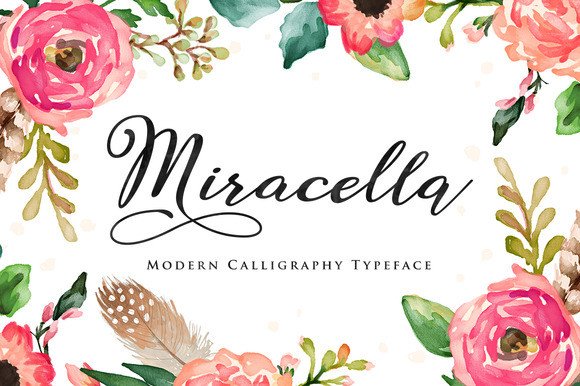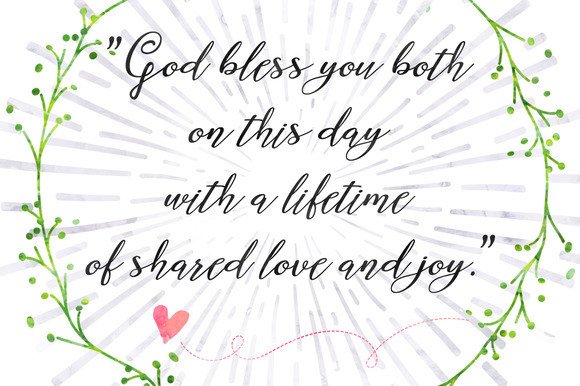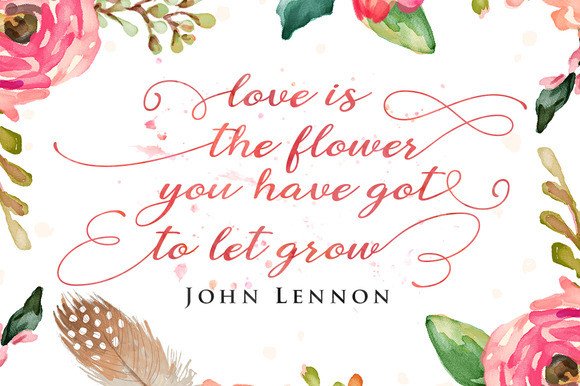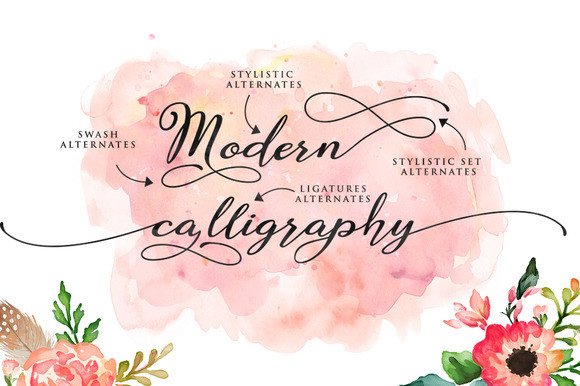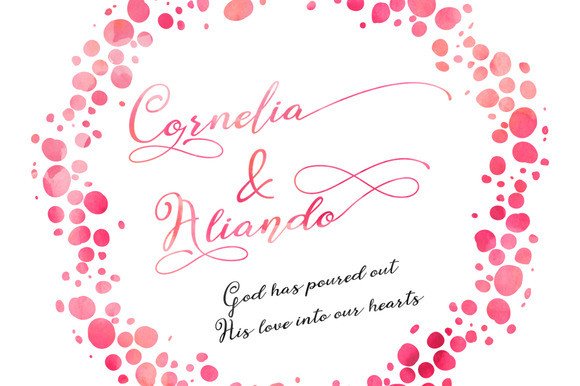
Miracella Font
About Miracella Font
Miracella script is a new handwritten calligraphy font. It will give your projects a classic and elegant touch. It can be used for various purposes such as headings, logos, invitations, t-shirt designs, greeting cards, posters, labels, book covers, brochures and much more!